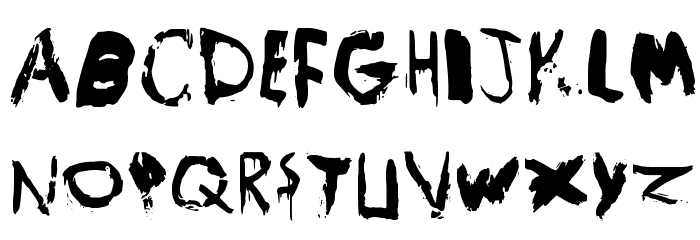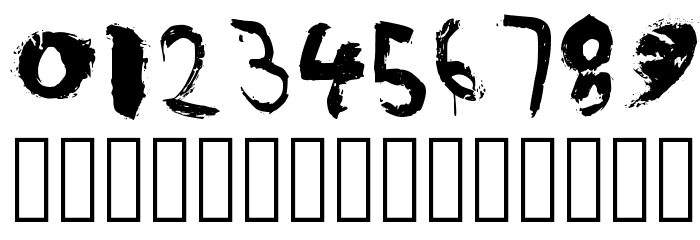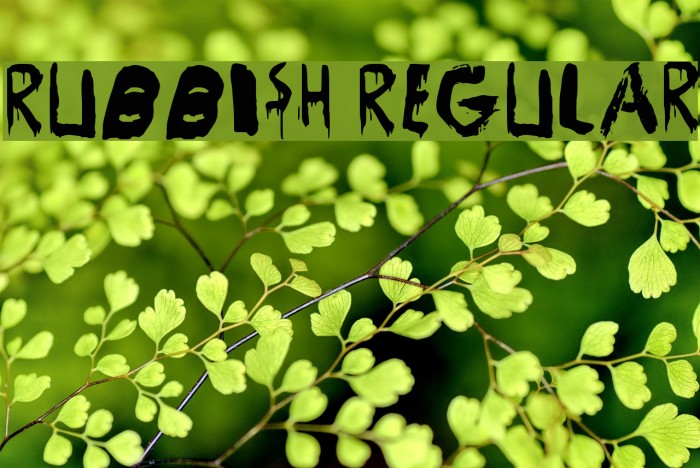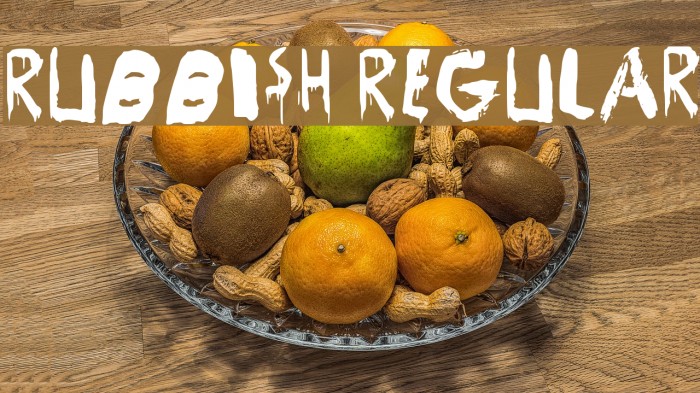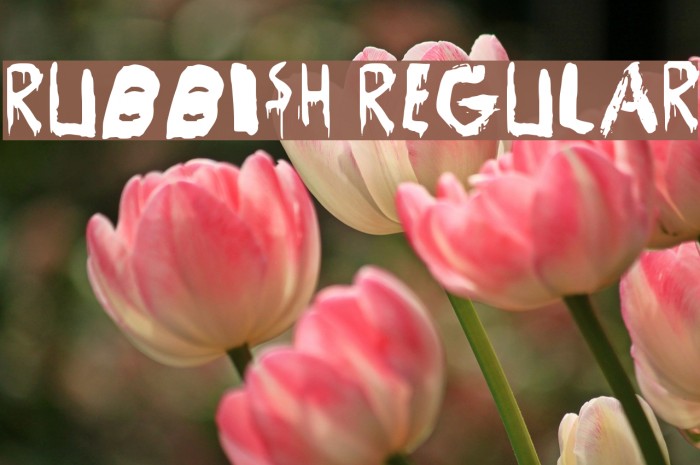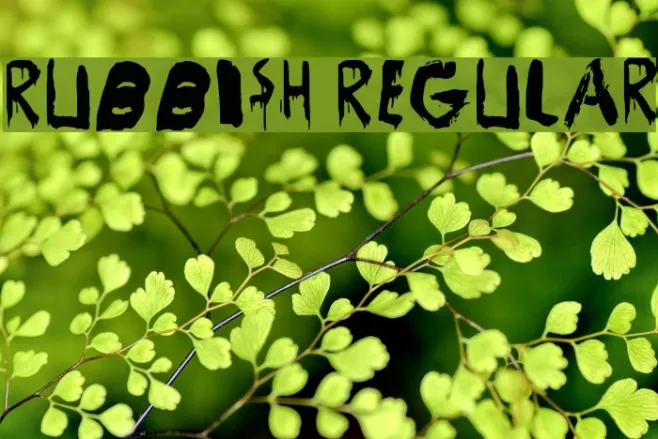
Rubbish Regular Font
This font features a bold and expressive design with a distressed, grunge aesthetic. The characters appear as if they have been painted with a brush, giving them an organic and raw feel. The strokes are uneven, with splatters and irregular edges that add to the chaotic and artistic vibe. The uppercase and lowercase letters maintain a consistent style, while the numbers and special characters follow the same rugged theme. This font is ideal for projects that require a bold statement or an edgy, urban look.
A bold, grunge-style font with a distressed, brush-painted appearance.
- Proposed Projects: Ideal for album covers, streetwear branding, graffiti art, and edgy poster designs.